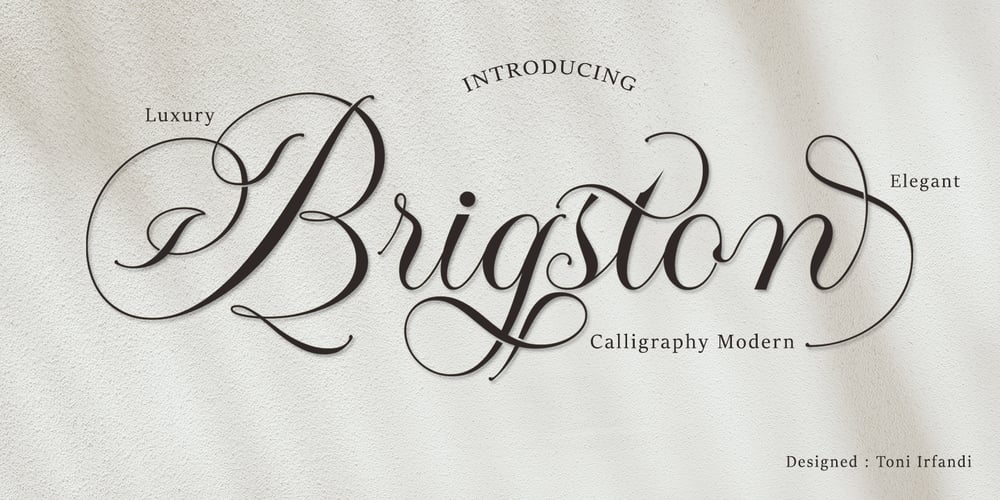
Brigstone Font Family was designed by Toni Irfandi and published by Tony Type Studio. Brigstone contains 1 styles and family package options. Brigston Calligraphy is a calligraphic font with a modern style and an elegant touch, inspired by Italian women’s handwriting and ancient manuscripts. Carefully designed to work together in harmony making it perfect for wedding favors, book covers, greeting cards, logos, branding, business cards and certificates, even for any design work that requires modern, formal or extravagant.Try Calligraphy Desired, enjoy the wealth of OpenType features and let its elegant fun and excitement make you happy and boost your creativity! You can use this font very easily.